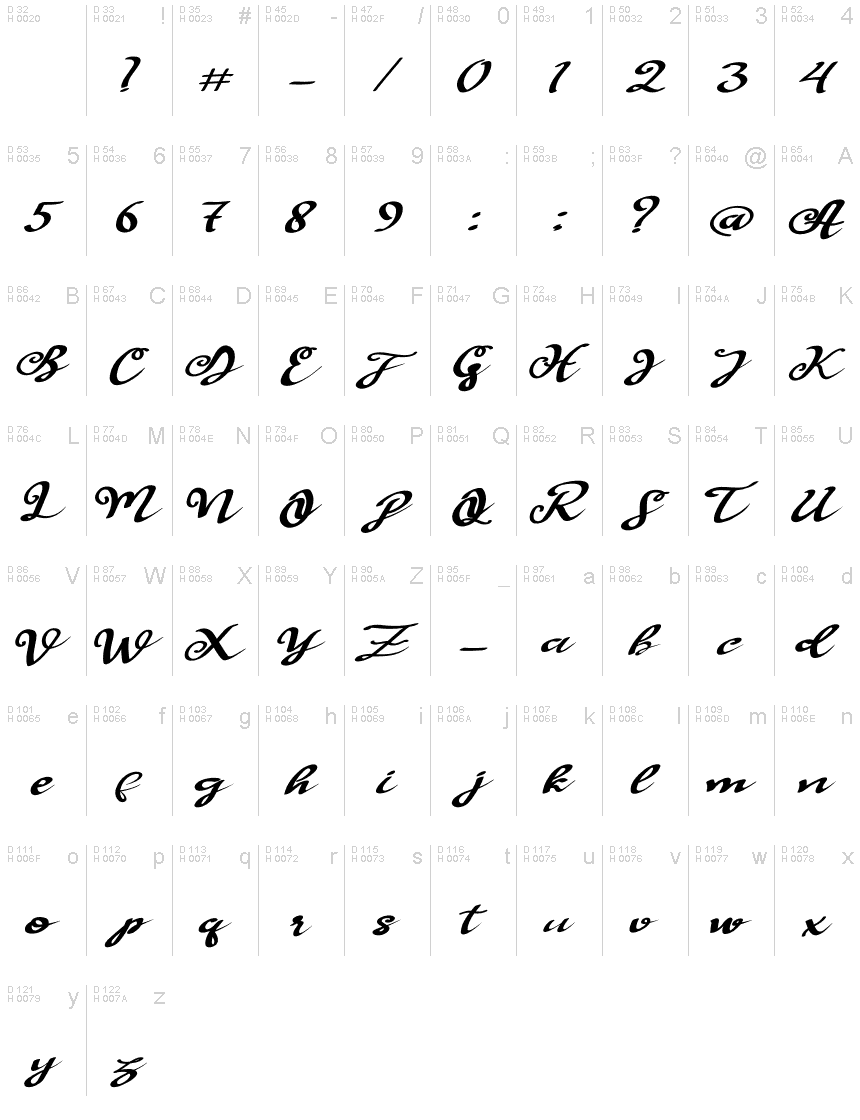
Lallaiku
Lallaiku is a charming semi-bold handwritten font designed by Lontong Lodeh. Its playful, organic style embodies the warmth and friendliness of handwritten notes, making it perfect for personal projects like greeting cards, invitations, and scrapbooks. However, its semi-bold weight also makes it suitable for professional use in branding and advertising materials that require a touch of personality. With its unique character and versatile nature, Lallaiku will bring an authentic touch to any project you undertake.